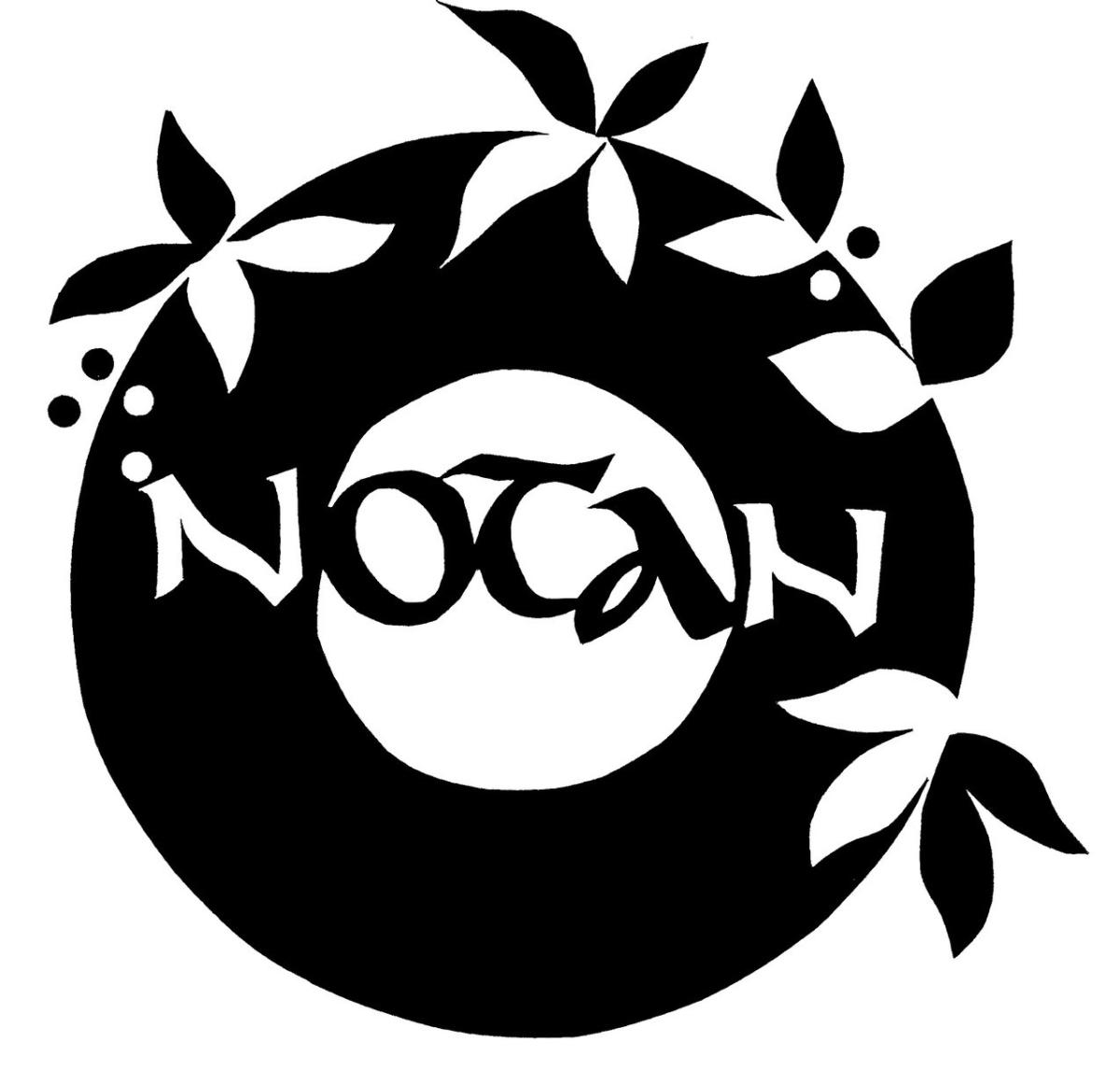
NOTAN with Gwyneth Hibbett
NOTAN - a workshop with Gwyneth Hibbett on Saturday 9th March, 2024.
‘Notan’ is a Japanese term that means “light-dark harmony”. It is a design concept that explores the relationship between flat areas of dark and light in an image, and how to arrange them in a pleasing way. In this workshop we will be using Notan with both lettering and designs, with a view to thinking about positive and negative space, and creating eye-catching calligraphic compositions.
notanNicola Dunn writes, “A fascination with Japanese culture meant I was particularly looking forward to Gwyneth’s Notan workshop and I wasn’t disappointed. We all enjoyed learning about this intriguing design concept using simple collage techniques with striking results.”